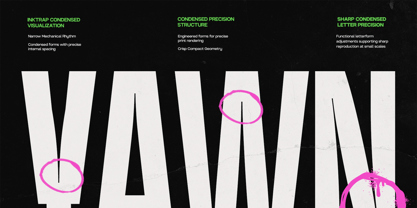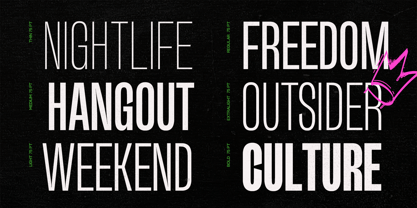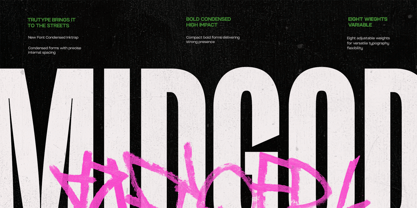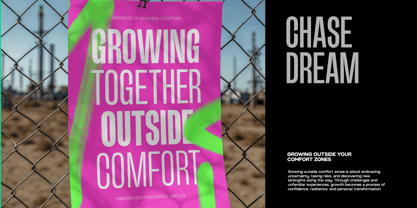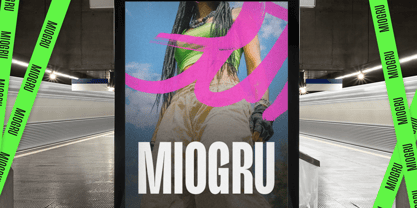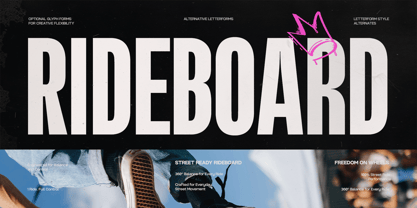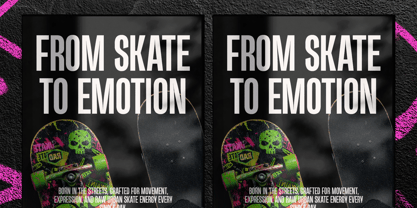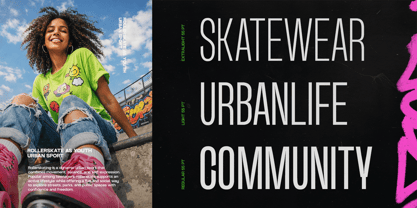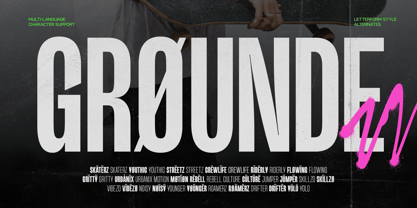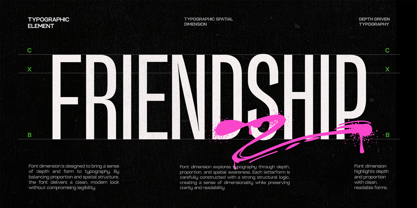
TRT Midgod
by True Type Lab
The TRT Midgod Font Family was designed by Yusilo Oktaprima Ardani and published by True Type Lab. TRT Midgod contains 8 styles and family package options. More about this family
Midgod is a condensed display typeface defined by precision, tension, and functional detail. Built with deliberate ink trap construction, each letterform balances bold presence with refined control—allowing the typeface to perform confidently across dense layouts and large-scale applications. Its condensed proportions create a strong vertical rhythm, making Midgod ideal for headlines, posters, and editorial systems where space, hierarchy, and impact matter. The ink traps are not merely decorative; they enhance clarity, texture, and durability across print and digital environments, giving the typeface a distinctly contemporary edge. Designed for branding and editorial, Midgod transforms words into visual anchors. From magazine covers and cultural campaigns to brand identities and digital platforms, it delivers a composed yet expressive voice—structured, modern, and unmistakably bold.
Designers: Yusilo Oktaprima Ardani
Foundry: True Type Lab